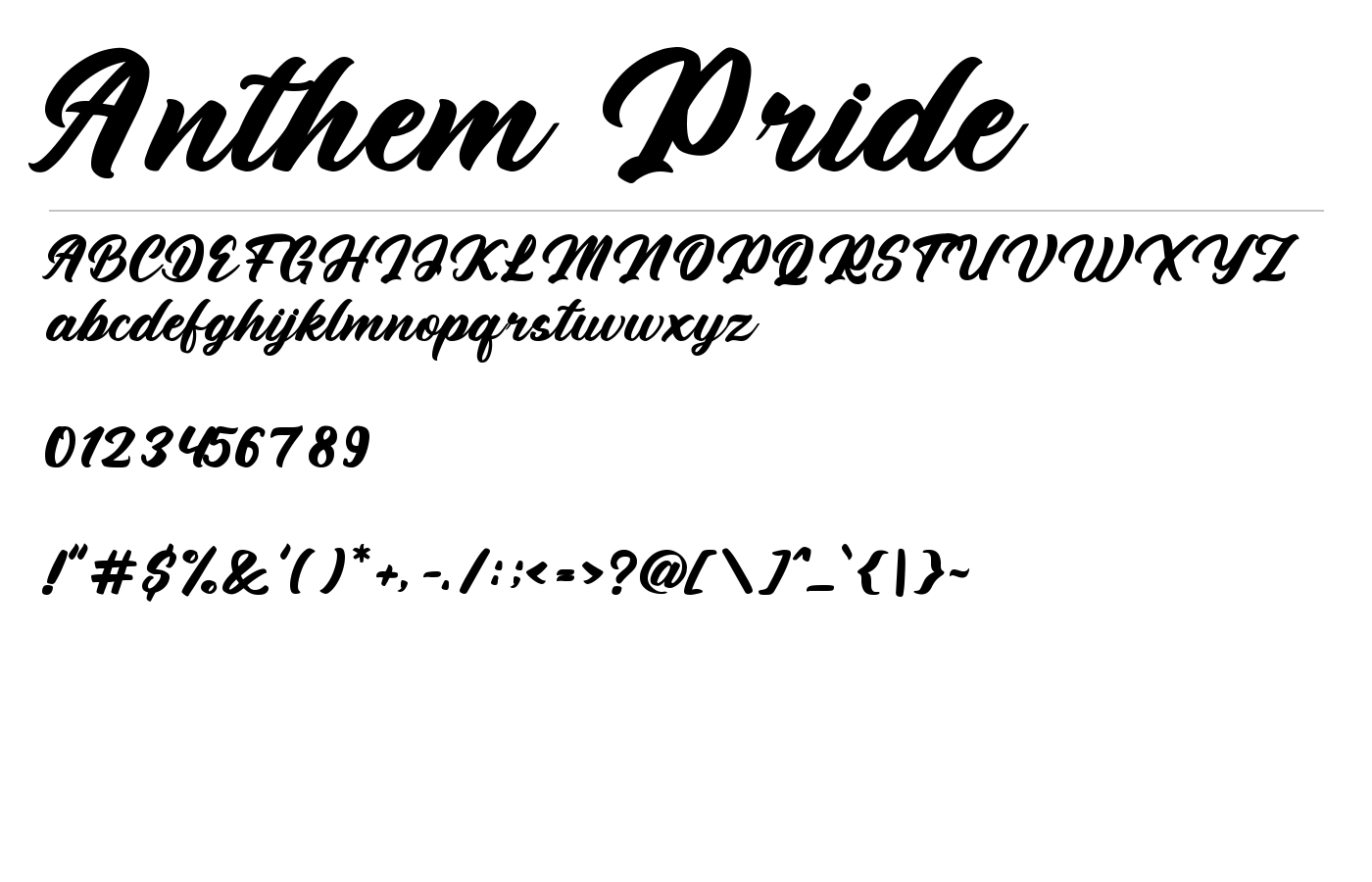
Anthem Pride is a bold and elegant script font with smooth, flowing strokes that give it a dynamic, handwritten feel. Its moderately condensed letterforms and medium contrast make it ideal for adding a touch of sophistication and personality to logos, invitations, and stylish branding projects. This font works well in designs that seek to blend classic charm with modern flair, especially where a confident, expressive voice is desired.
Anthem Pride Font
About Anthem Pride Font
| Font family | Anthem Pride Font |
| Designer | Ronny Studio |